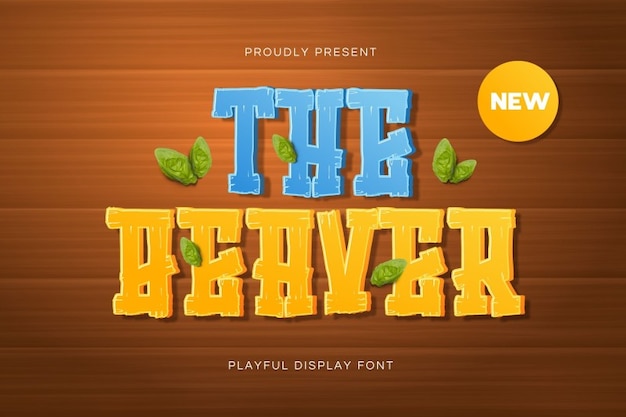
The Beaver Font
Imoodev
The Beaver font: Rustic and rooted in nature, it echoes the essence of woodsy charm. Each letter carries the organic appeal of nature's grains and textures. With a rustic touch, this font embodies the rugged beauty of wood, evoking a sense of nature's tranquility and raw elegance within its typographic strokes.